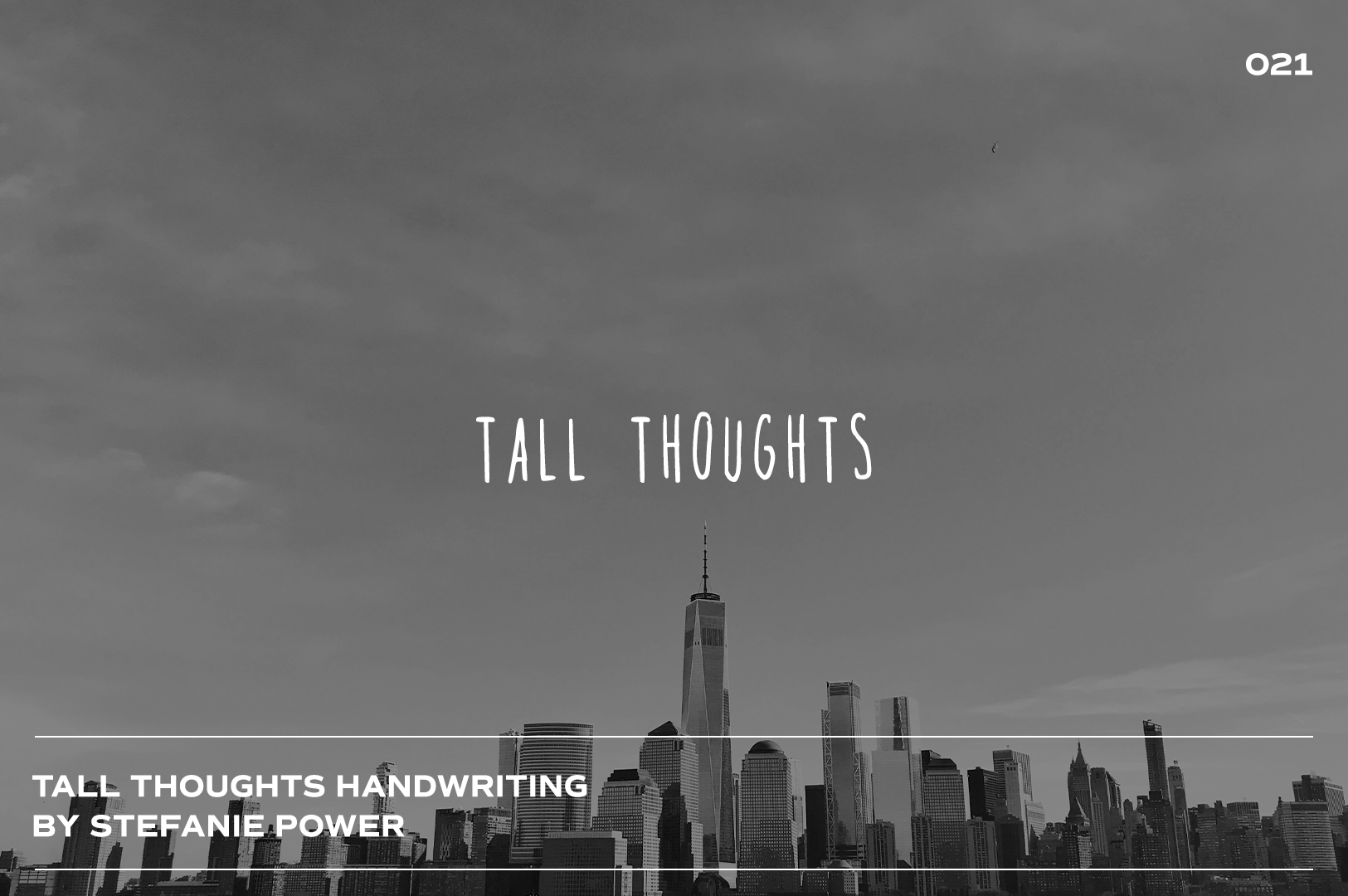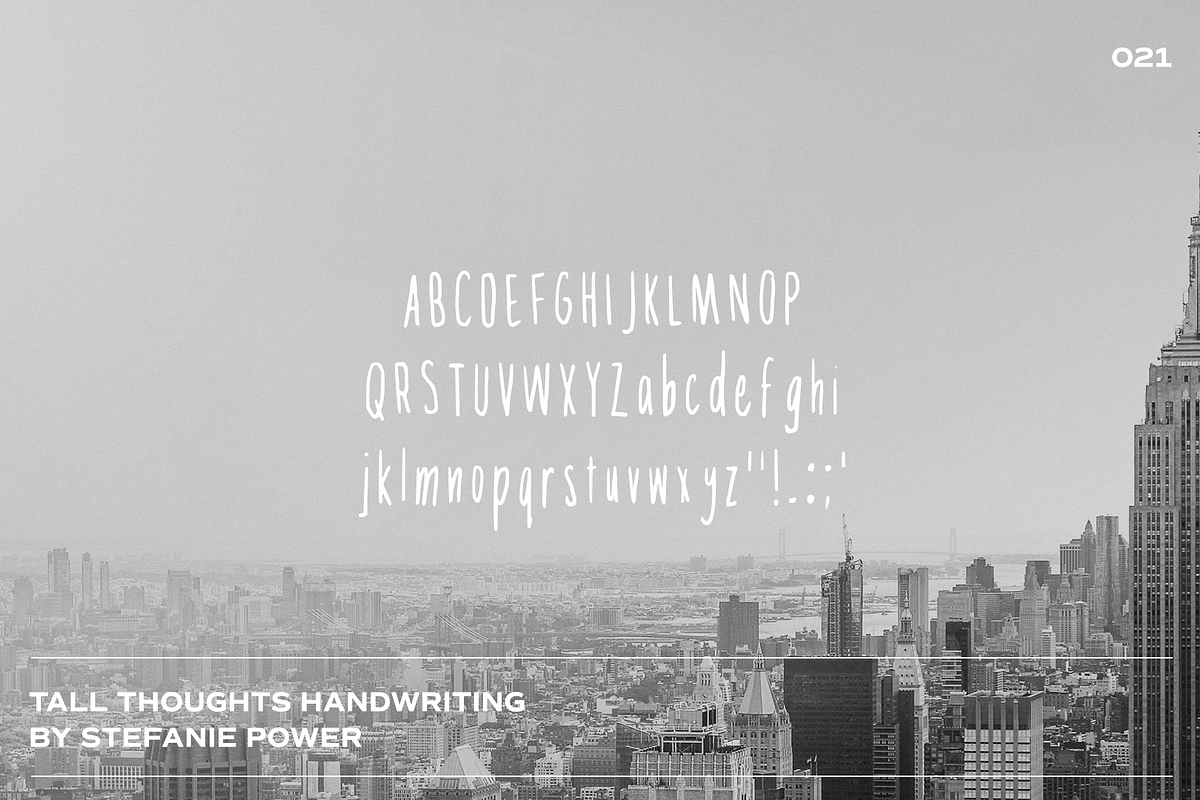
TALL THOUGHTS Handwriting | Font
Introducing 'Tall Thoughts' - a tall and cheerful font.
TALL THOUGHTS Handwriting • A handwritten script font containing upper & lowercase characters and a range of punctuation and numbers.